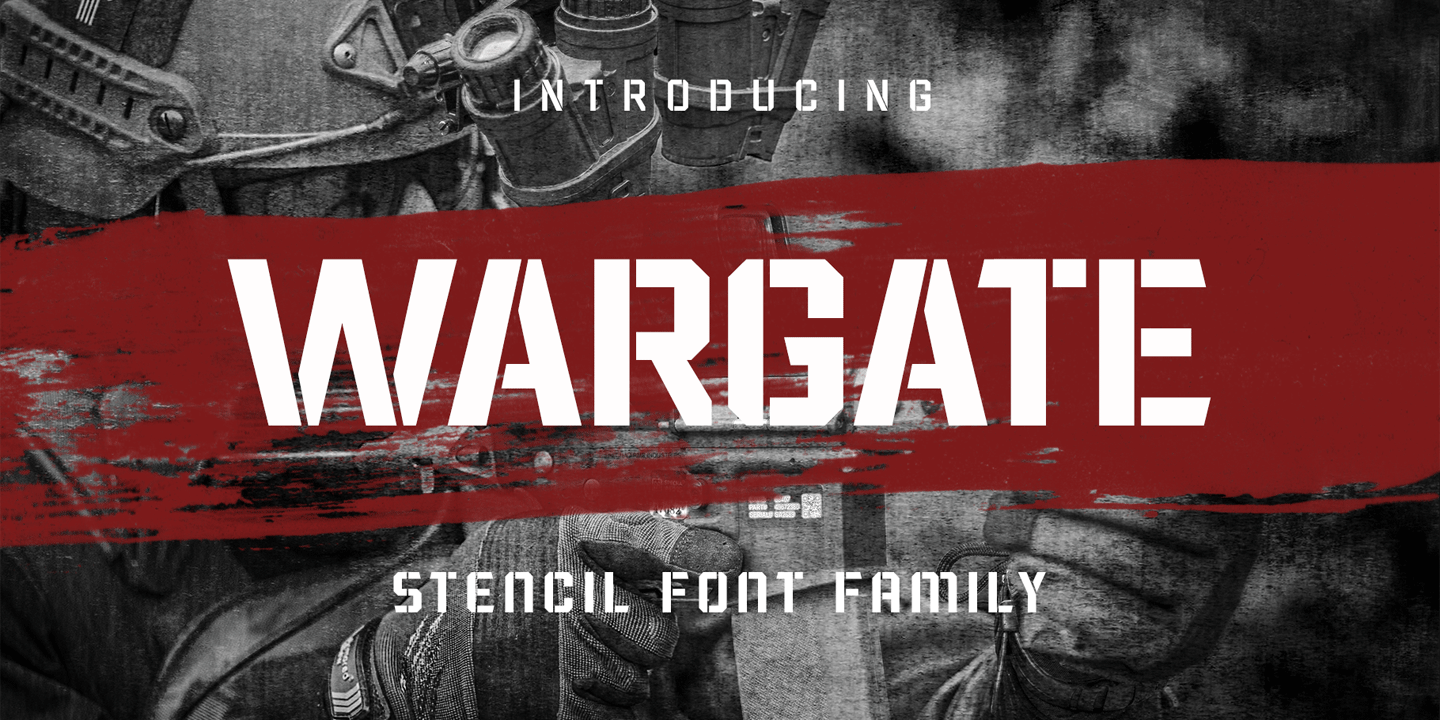
Wargate Font is perfect for military strategy gaming, tactical warfare simulations, combat sports branding, fortress-themed restaurants, battlefield historical museums, war movie titles, survival training camps, strategic board game packaging, military equipment advertising, and any project requiring combat strength with tactical precision and fortress-like durability and strategic dominance.
What makes Wargate Font exciting is its tactical strength and military precision that embodies the strategic power of warfare command and the unbreakable fortitude of battle-tested leadership. The typeface features bold, fortress-inspired letterforms with angular details and strategic elements that evoke the commanding presence of military strongholds and the disciplined excellence of tactical operations. Its combat character design speaks to audiences who appreciate strategic thinking, military heritage, and the transformative power of disciplined leadership, making it perfect for tactical brands seeking to communicate strength, strategy, and the unwavering determination of military precision that conquers challenges through strategic planning and tactical excellence.
Wargate Font family includes regular, medium, and bold weights with complete character sets featuring uppercase and lowercase letters, tactical numerals, military punctuation marks, and fortress decorative elements. The typeface incorporates strategic design principles and military aesthetic traditions that enhance its commanding appearance while maintaining excellent readability across all tactical applications and combat-themed design projects.
Whether you're creating military brand identity, designing strategic gaming materials, or developing combat-inspired marketing campaigns, Wargate Font Free Download provides the perfect typographic foundation that communicates tactical superiority and military strength. The font's commanding appeal and strategic character make it particularly effective for gaming companies, tactical training organizations, and military-themed entertainment venues. Its fortress aesthetics translate powerfully across strategic signage, combat publications, and digital platforms, ensuring your brand communicates the kind of authentic military precision and tactical dominance that resonates with strategic thinkers and admirers of military excellence and battlefield heritage.